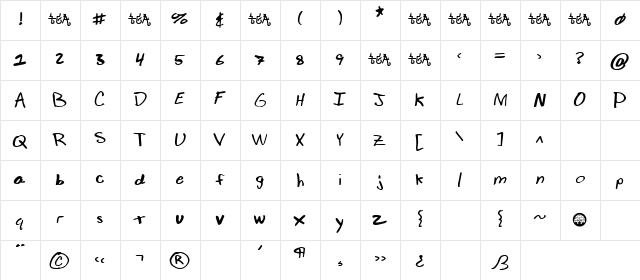
Mr. Calcium Regular Font Preview
Mr. Calcium Regular
Mr. Calcium Regular Font Details
Design Context for Mr. Calcium Typeface
Mr. Calcium is a composed and adaptable typeface that performs quietly and consistently across a wide range of design contexts.